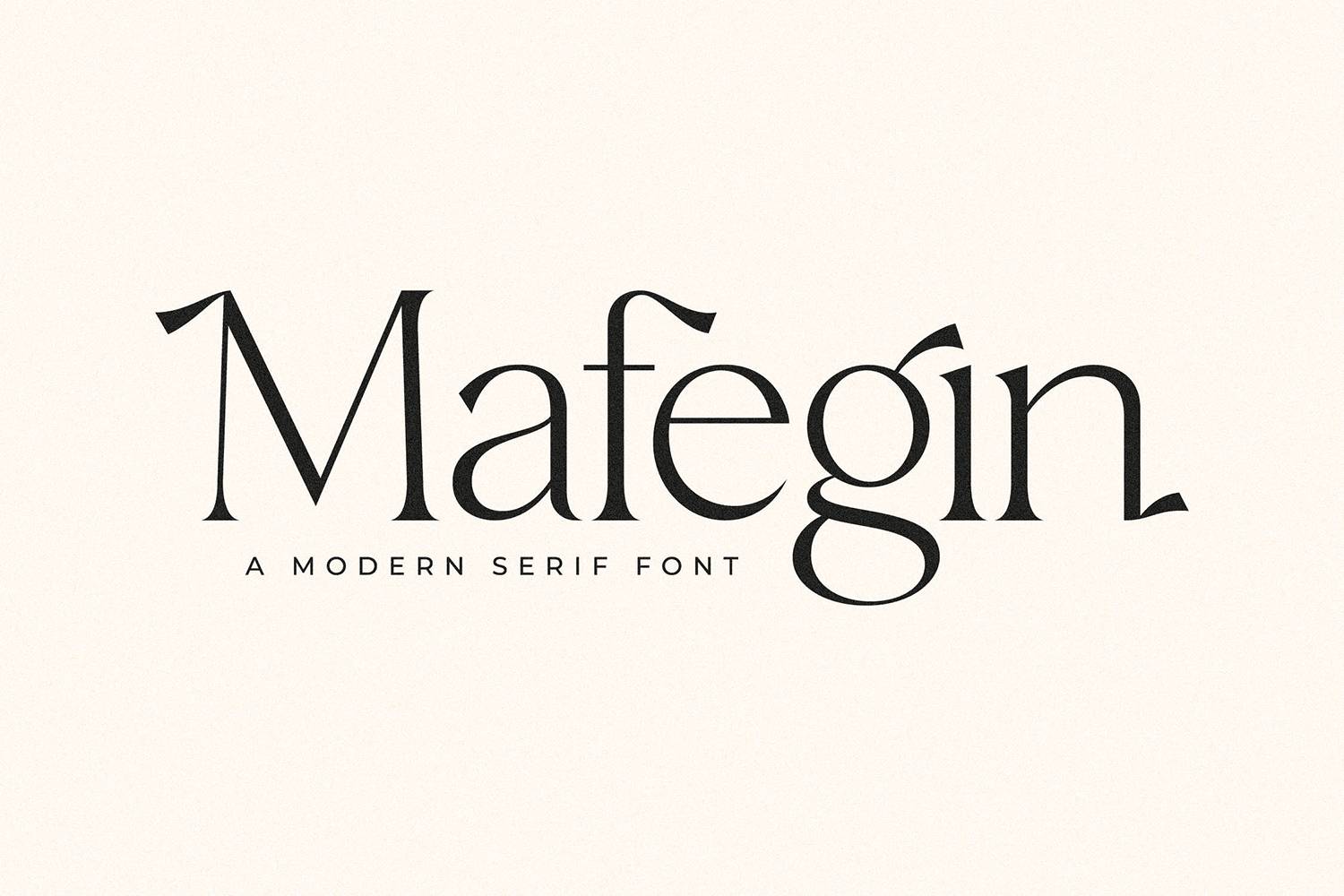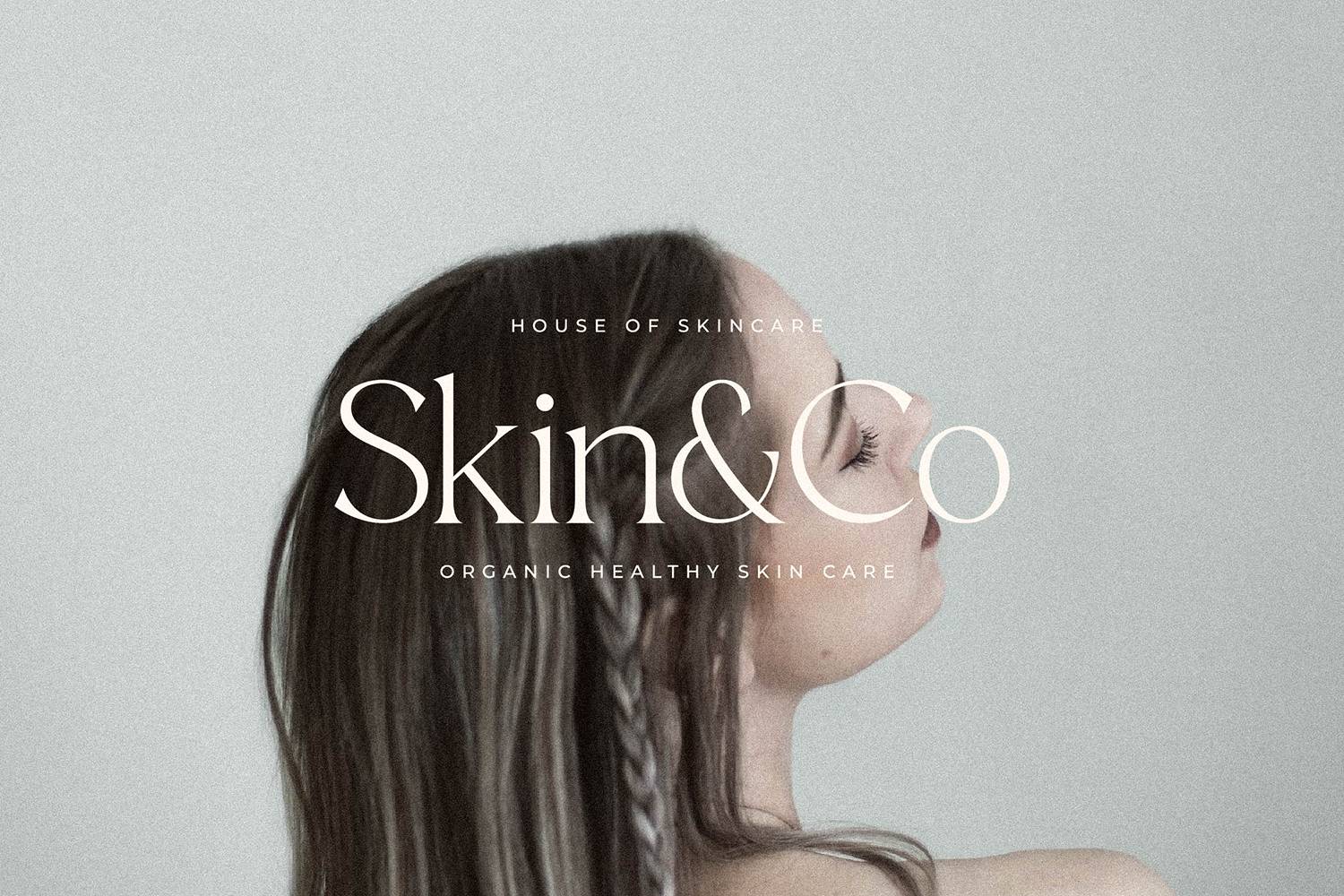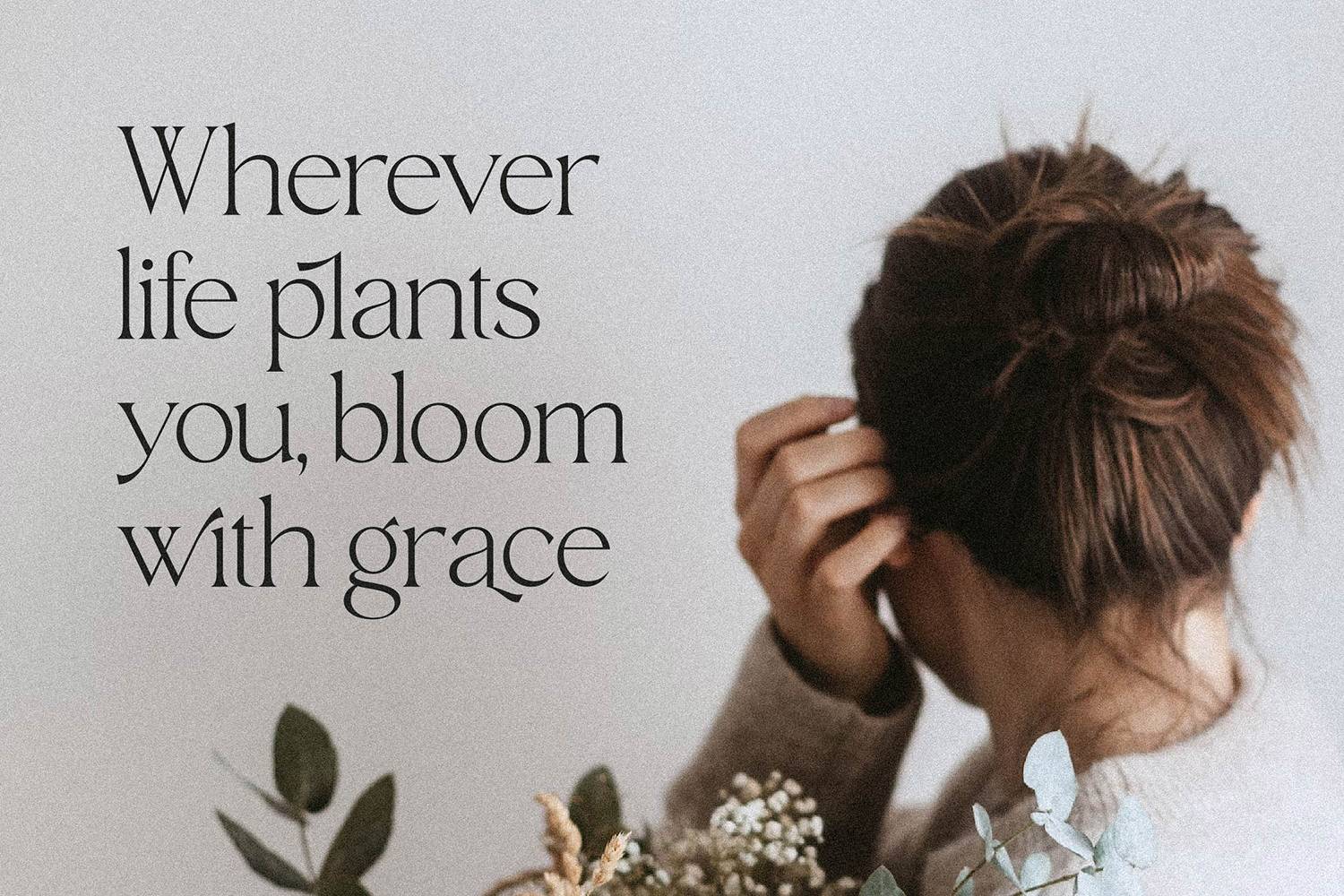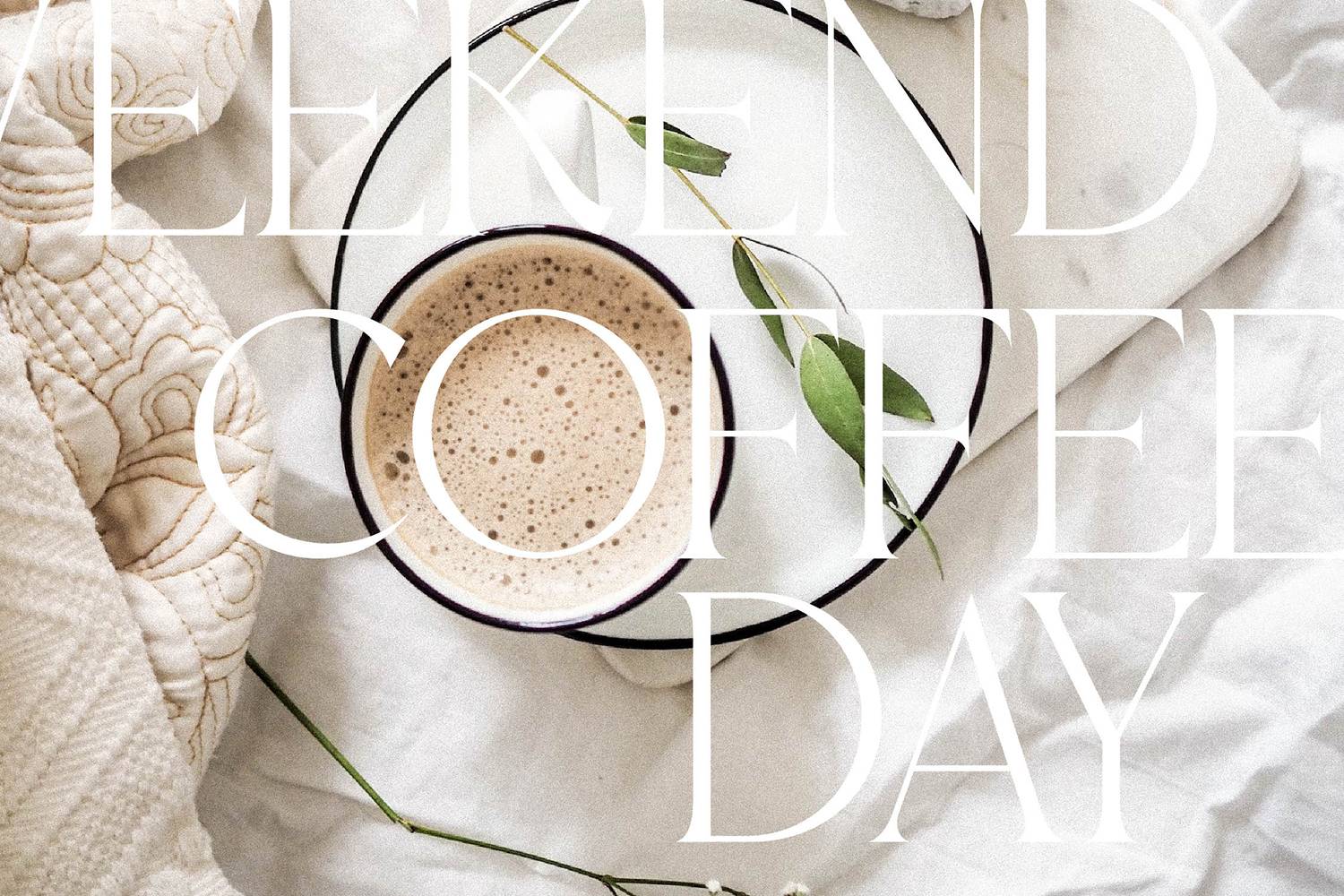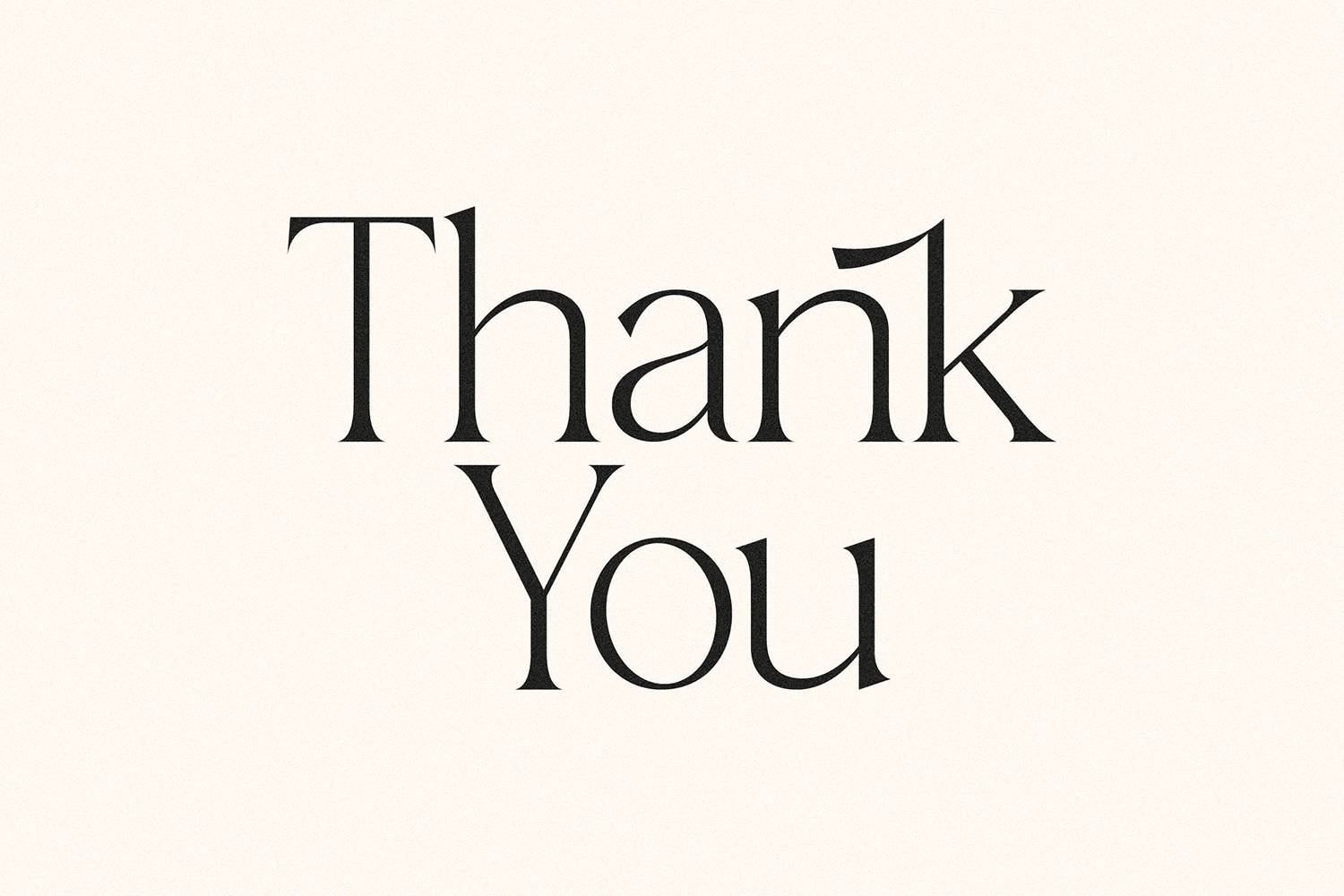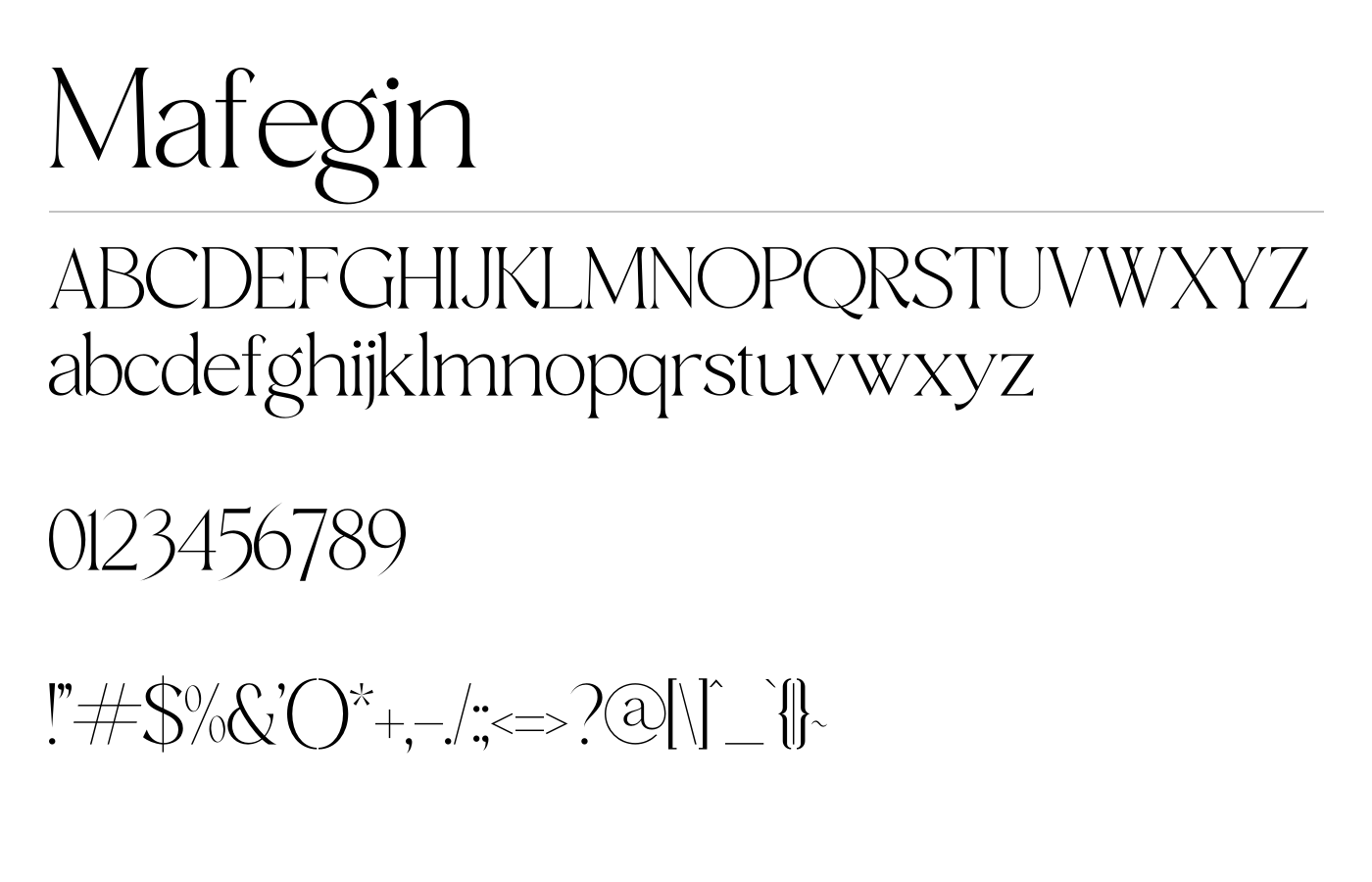
Mafegin is a refined serif font that combines a delicate, high-contrast stroke with elegant, sharp serifs and a slender, tall structure, giving it a sophisticated and graceful appearance. Its clean, modern design with distinctive letterforms makes it ideal for luxury branding, editorial headlines, and fashion-related projects where an upscale, stylish impression is desired. This font works best in large sizes where its fine details and unique personality can shine.
Mafegin Font
About Mafegin Font